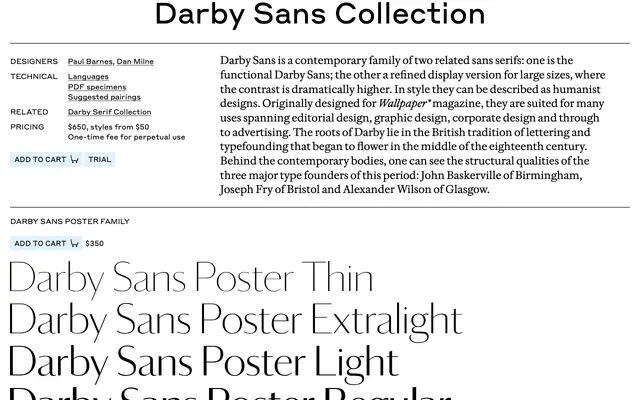
Darby Sans Collection
Commercial Type · Paul Barnes, Dan Milne
A humanist sans by Paul Barnes and Dan Milne drawn for Wallpaper magazine, rooted in 18th-century British type founding from Baskerville, Fry and Wilson.
A humanist sans by Paul Barnes and Dan Milne originally drawn for Wallpaper magazine, split into a functional Darby Sans for working text and a higher-contrast display cut for large sizes. The skeletons reach back to the British type founding tradition that flowered in the mid-18th century, behind the contemporary curves you can read the structure of Baskerville of Birmingham, Joseph Fry of Bristol and Alexander Wilson of Glasgow. Sits in editorial, graphic, corporate and advertising work that wants a calm British sans with historical depth.
Commercial Type describe Darby Sans as a humanist sans rooted in the British lettering and typefounding tradition of the mid-18th century, drawing on Baskerville, Joseph Fry and Alexander Wilson. Two related cuts: a functional Darby Sans and a higher-contrast display version.